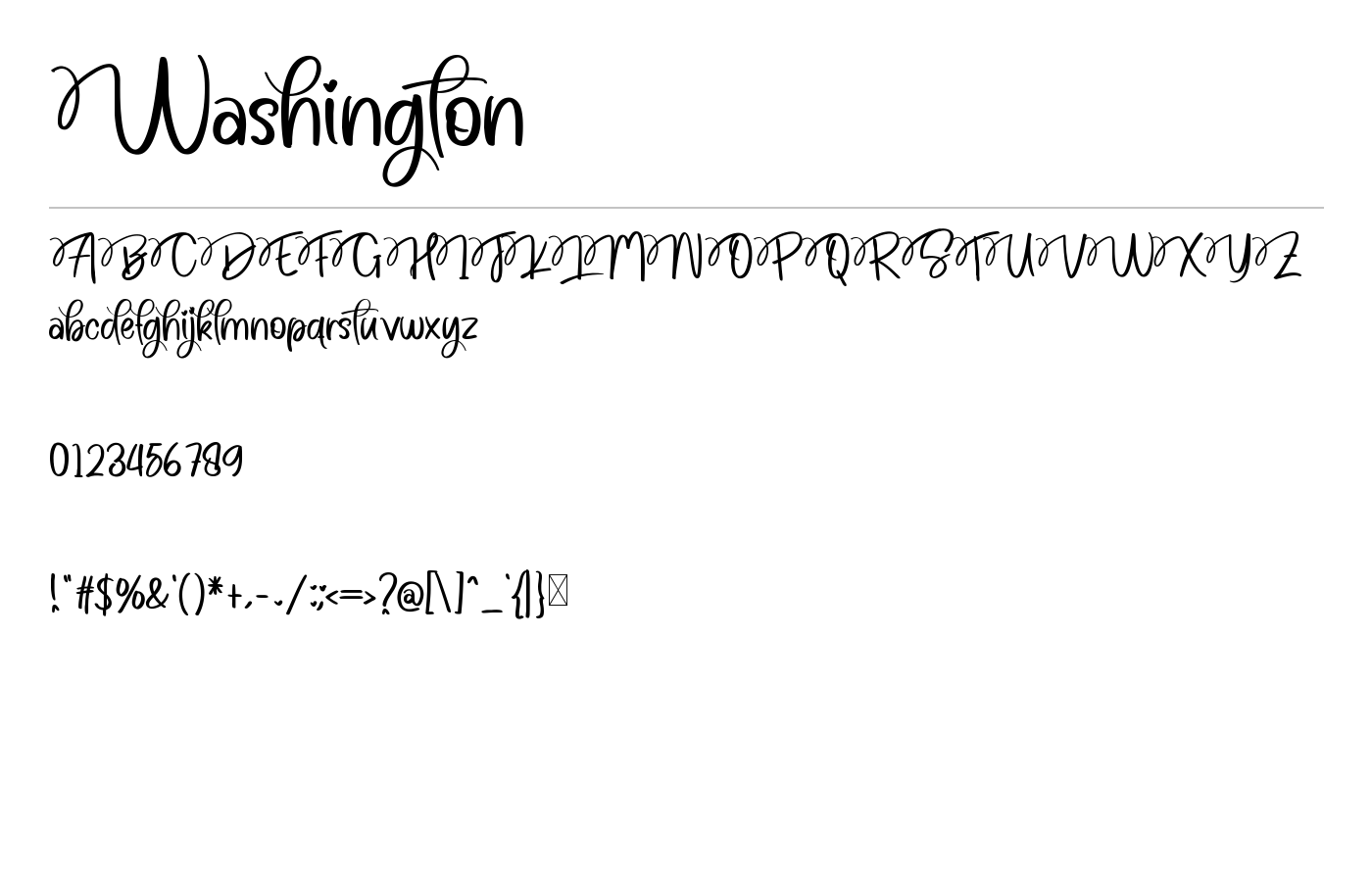
Washington Font is a playful and charming handwritten script with a casual, organic feel. Its slender, slightly irregular strokes and distinctive swashes give it a personal, friendly character, making it ideal for creative projects, invitations, and branding that seeks warmth and approachability. This font works especially well in headline or decorative uses where a unique, informal style is desired.
Washington Font
About Washington Font
| Font family | Washington Font |